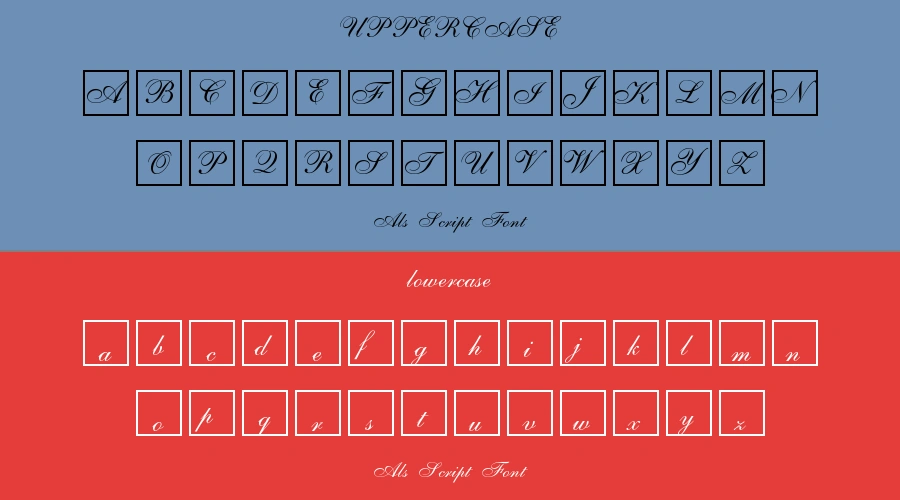
About Als Script Font
When typographic excellence matters most, Als Script Font delivers through its thoughtful blend of dramatic weight and visual rhythm. Specially crafted for scientific papers, it offers the versatility and market appeal required for sophisticated design work. Every detail serves a purpose.
The character set showcases thoughtful details like calligraphic influence alongside functional lining figures. This proves especially valuable in research articles, where large format rendering directly influences results. Particular attention was paid to stroke modulation and cultural resonance during development.